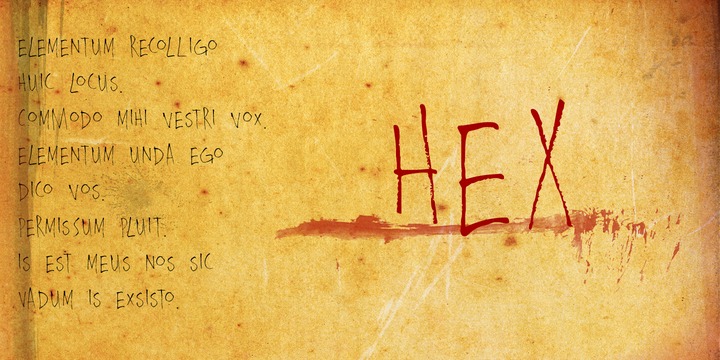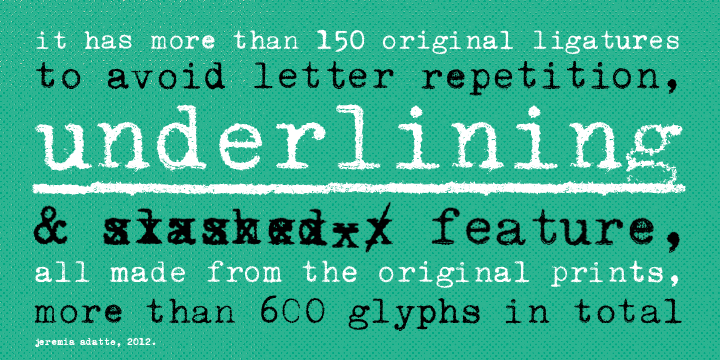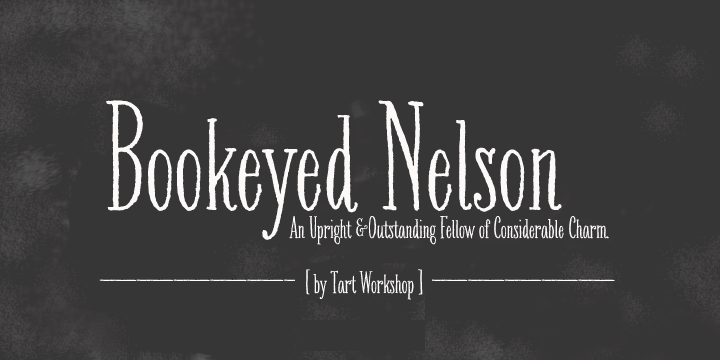
Ahra Font
Ahra
Ahra is an elegant calligraphic handwritten typeface created by Jessica McCarty and published by Magpie Paper Works that has three sets of capital letters, prepositions, envelope addressing, an ornate set of numerals 0-9 etc. It is perfect for headline, magazine,wedding etc. Have fun!
Copperlove Font
Copperlove
Copperlove is an elegant caligraphic handwritten typeface published by Resistenza that is perfect for your romantic project, wedding invitation, signature, logo etc.
Icing Font
Icing
Icing is an elegant handwritten typeface created by Molly Jacques Erickson & Dathan Boardman and published by Great Lakes Lettering. It is a sweet calligraphic font marking pen writing. Enjoy!
Naïve Inline Font
Naïve Inline
Naïve Inline is an elegant handwritten typeface created by Fanny Coulez and published by La Goupil. You’ll find three weights perfect for headline, magazine, wedding project etc.
Pocket Px Font
Pocket Px
Pocket Px  is an handwritten sans-serif typeface created by Kemie Guaida and published by Pixilate. You’ll find a comic text, funny letttering, combination of narrows and round forms. Enjoy!
Olivier Font
Olivier
Olivier is a typeface created by Ursula Hitz and published by Letters&Numbers. This font is recommended for logos, short paragraphs, heading and it relies on painted black ink letters. Enjoy!
Piel Script Font
Piel Script
Piel Script is a typeface created by Alejandro Paul and published by Sudtipos. It is a handwritten font inspired by the tatoo design, an original design, a personal kind of typography. Messages are powerful worth wearing them that you can use it on your skin or on your skateboard, book cover etc. Enjoy it!
Ishia Antiqua Font
Ishia Antiqua
Ishia Antiqua is a typeface published by Fernando Forero. It is an elegant, calligraphy, handwritten font perfect for your old wedding invitation. You must have it!
Saissant Font
Saissant
Saissant is a typeface created by Jessica McCarty and published by Magpie Paper Works. It is a hand-drawn font designed for emotional impact. This font has calligraphic, decorative, romantic handwriting.
Hex Font
Hex
Hex is a typeface created by David Kerkhoff and published by Hanoded. This font is perfect for scary halloween postcard, it is a uneven, spiky. Buy it!
Poem Script Pro Font
Poem Script Pro
Poem Script Pro is a typeface created by Alejandro Paul and published by Sudtipos. Buying this font, you will find plenty of variatoins on each letter and comes with hundreds of calligraphic ornaments.
Montague Script Font
Montague Script
Montague Script is a typeface created by Stephen W. Rapp and published by Stephen Rapp. You can use it in your projects like packaging, logo designs, card, invitations, journals etc.
Swissa Piccola Font
Swissa Piccola
Swissa Piccola is a font created and published by Yeremia Adatte that want to be an improved version of Swissa Piccola original typewritter. You have unique precision, unique characters, more 600 glyphs in total.
Bookeyed Nelson Font
Bookeyed Nelson
Bookeyed Nelson is a font created by Crystal Kluge, Stuart Sandler and published by Tart Workshop. This font conbines three styles called inside the Bookeyed family Jack, Suzanne and Nelson. Used together can be helphful on book covers, posters, logotypes etc.